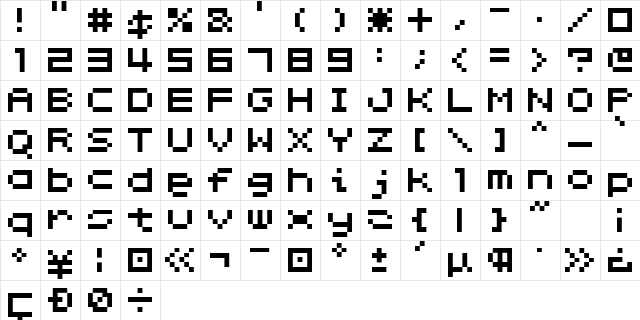
Gogo FiveVer2
Design Context for Gogo Typeface
Gogo offers clean, dependable letterforms without strong stylistic allegiance, making it a practical choice for designers who need flexibility.